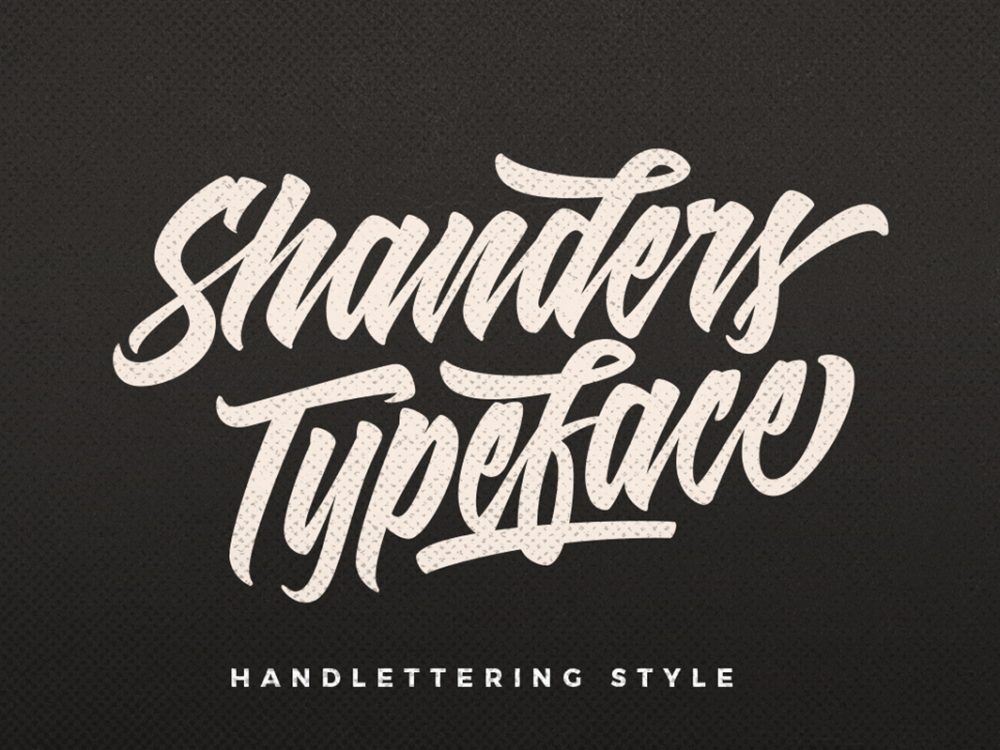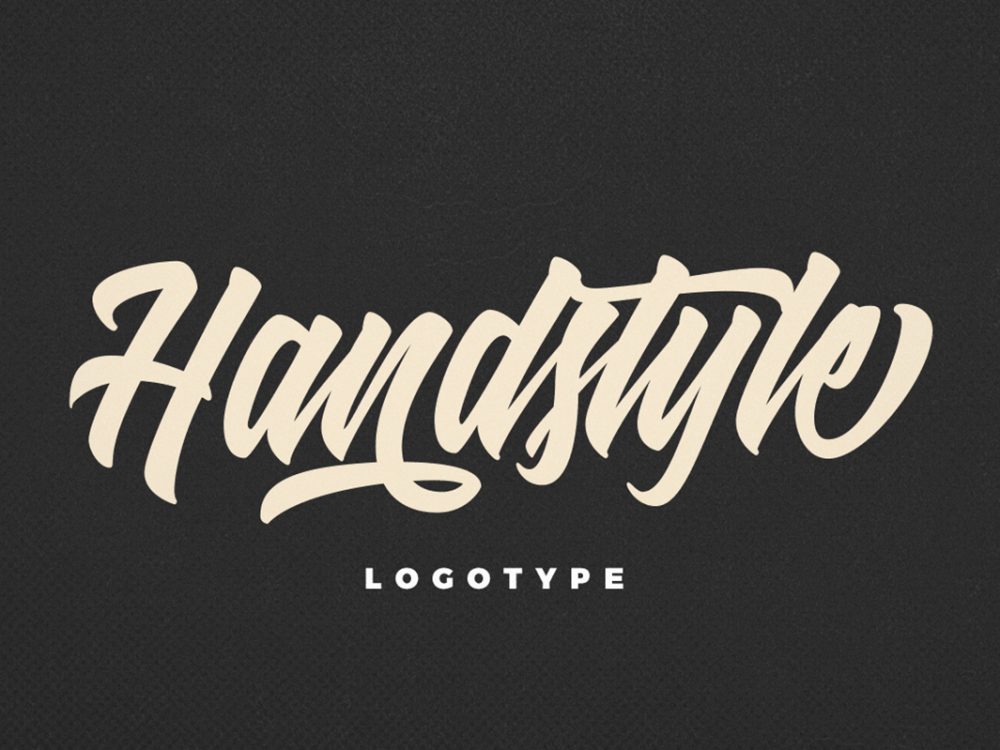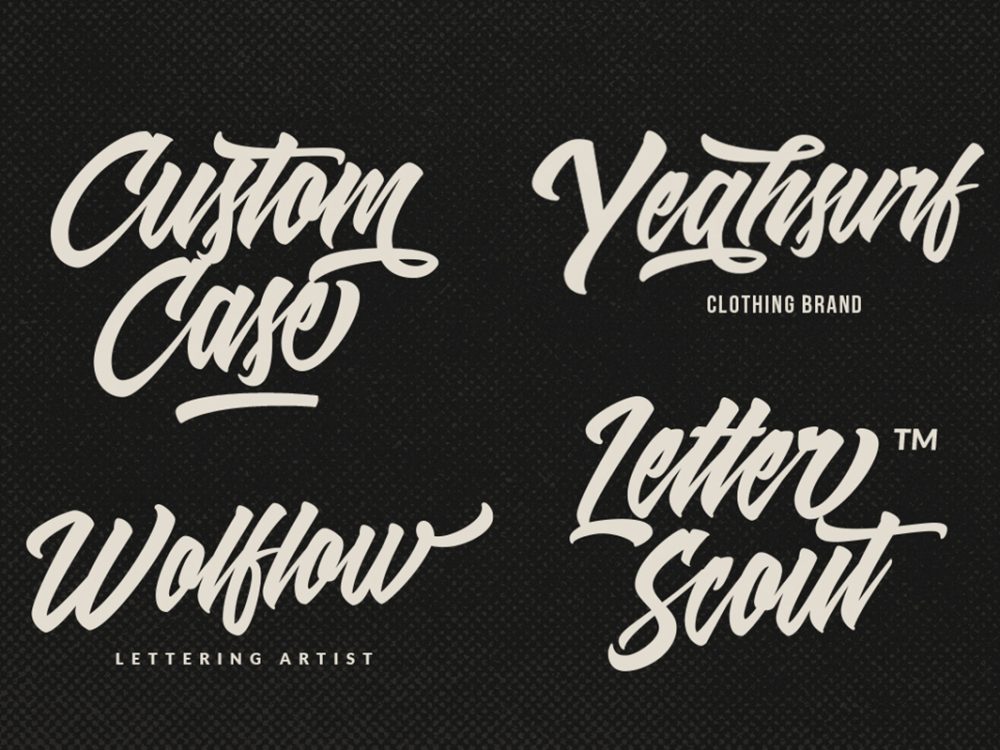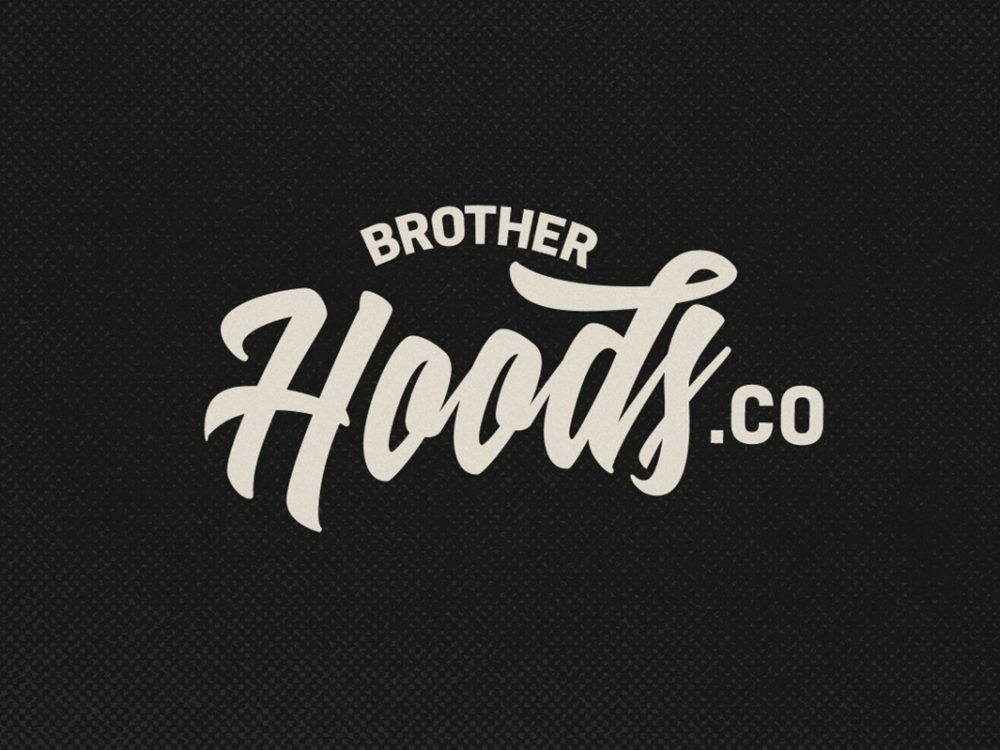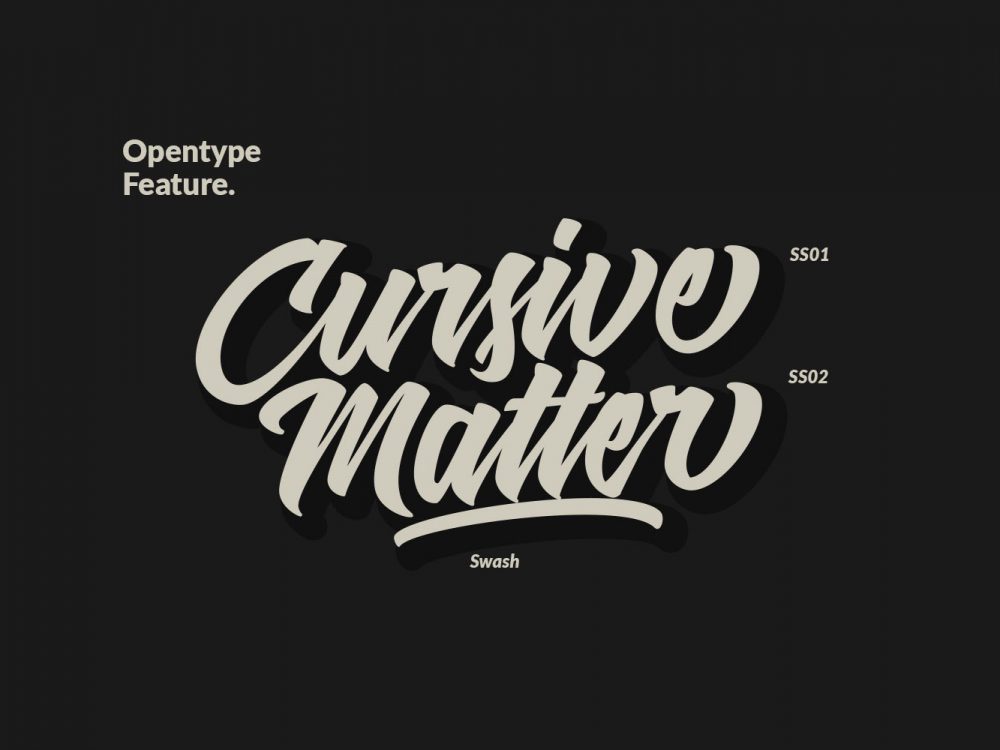
Shanders Free Font
Shanders Free Font is an interesting handwritten font that features an elegant calligraphic style and a strong baseline. This font simulates writing with a brush and will help you create unique design projects and improve your professional level. Use this font to create memorable posters, wedding invitations, cards, branding, flyers, and more. Improve the quality and increase the popularity of your design projects by using this font. If you like it don’t forget to check out the full version.